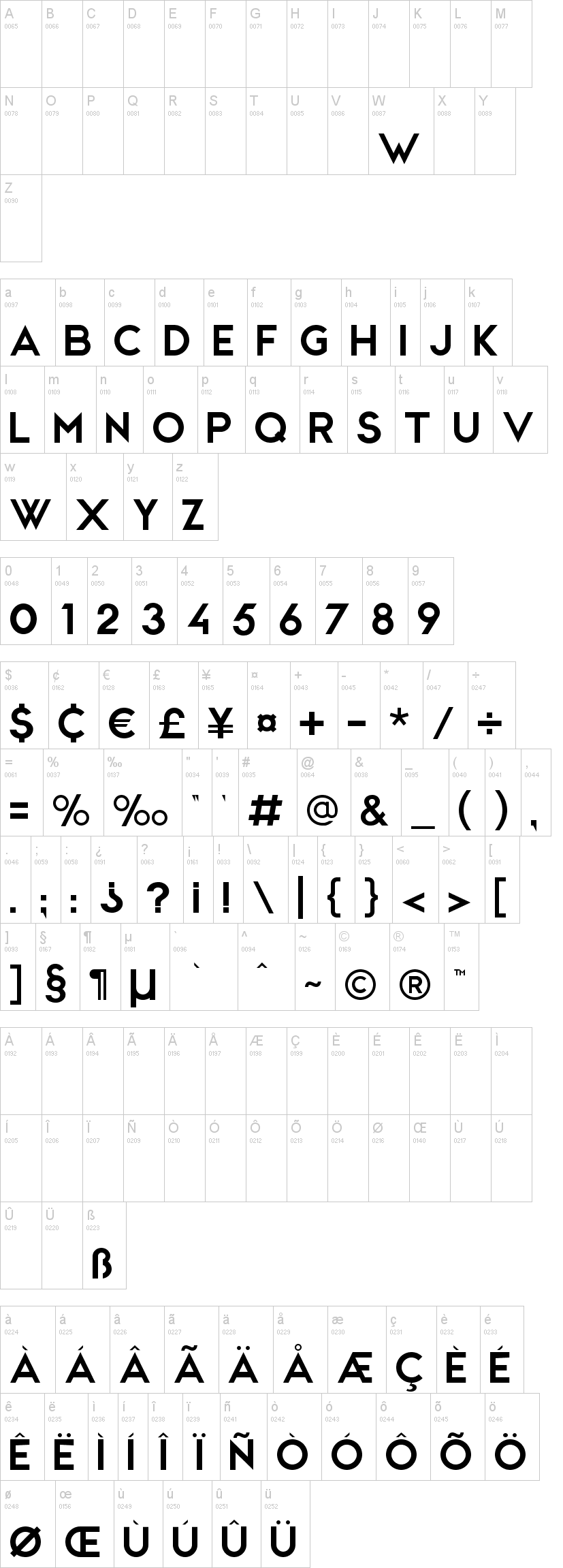
Шрифт CWG Sans
I designed this font for use as a display type for titles, headlines, posters and so on. I would be
I have added more glyphs and tweeked the font even more.